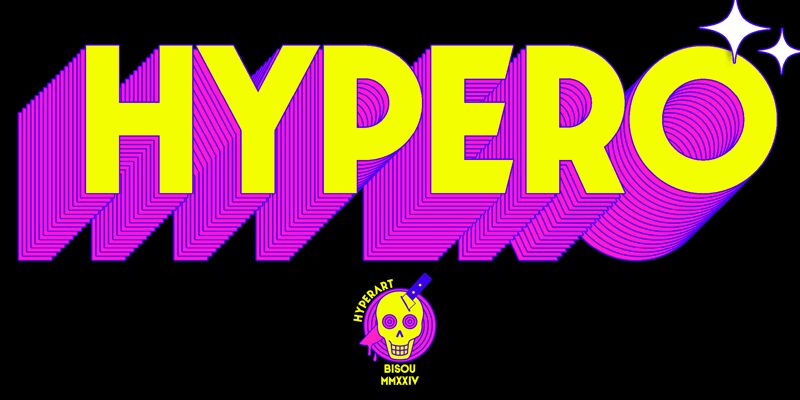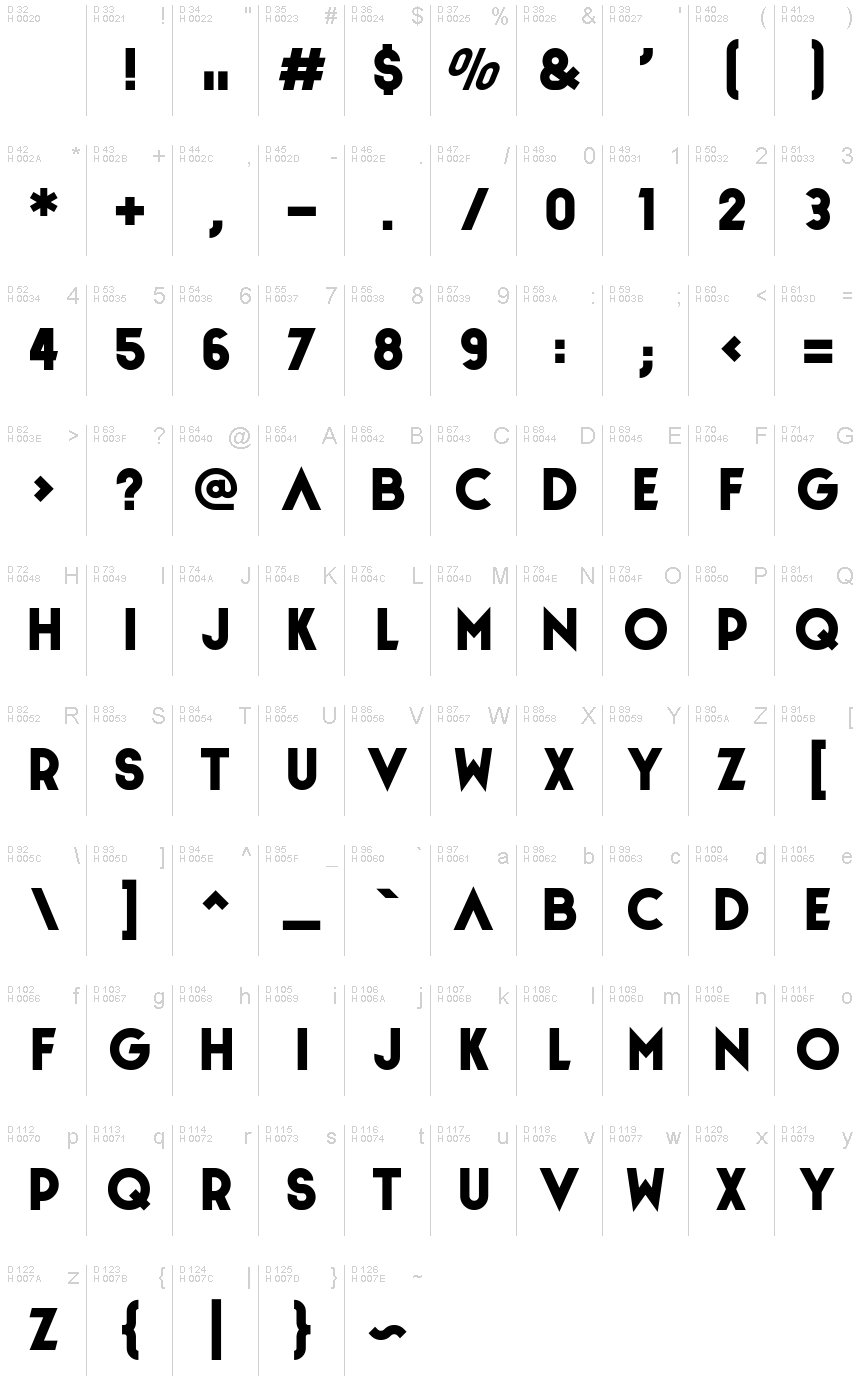
Hypero
Hypero, a captivating sans-serif font designed by Bisou, exudes a harmonious blend of modern elegance and subtle sophistication. With its clean lines, balanced proportions, and distinct character, this typeface commands attention, effortlessly complementing a wide range of design aesthetics. The seamless flow of its letterforms and the careful attention to detail create a sense of timeless sophistication, making Hypero an excellent choice for branding, editorial layouts, and digital interfaces.
Hypero's versatility shines through its ability to adapt to diverse design contexts. Its legible and approachable nature makes it an ideal selection for corporate communications, while its refined style lends itself well to luxury product packaging and high-end fashion applications. Additionally, the font's versatility extends to headlines, subheadings, and body text, allowing designers to create harmonious typographic hierarchies across various projects.